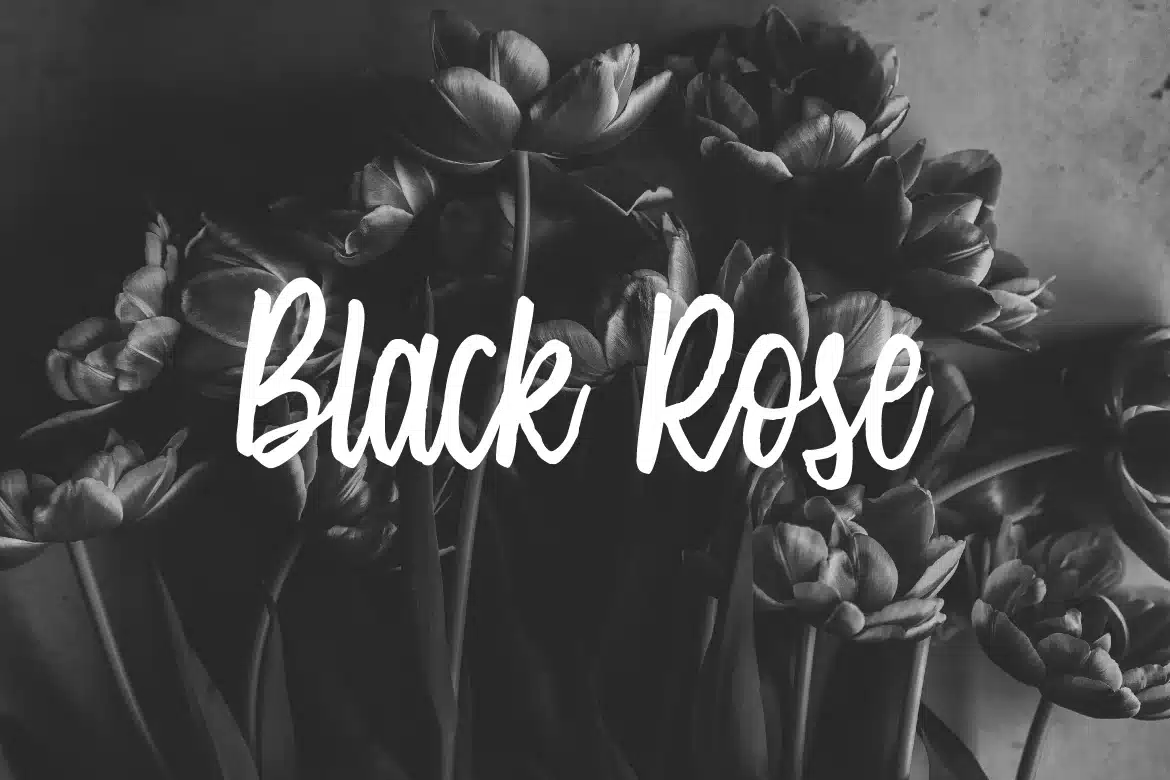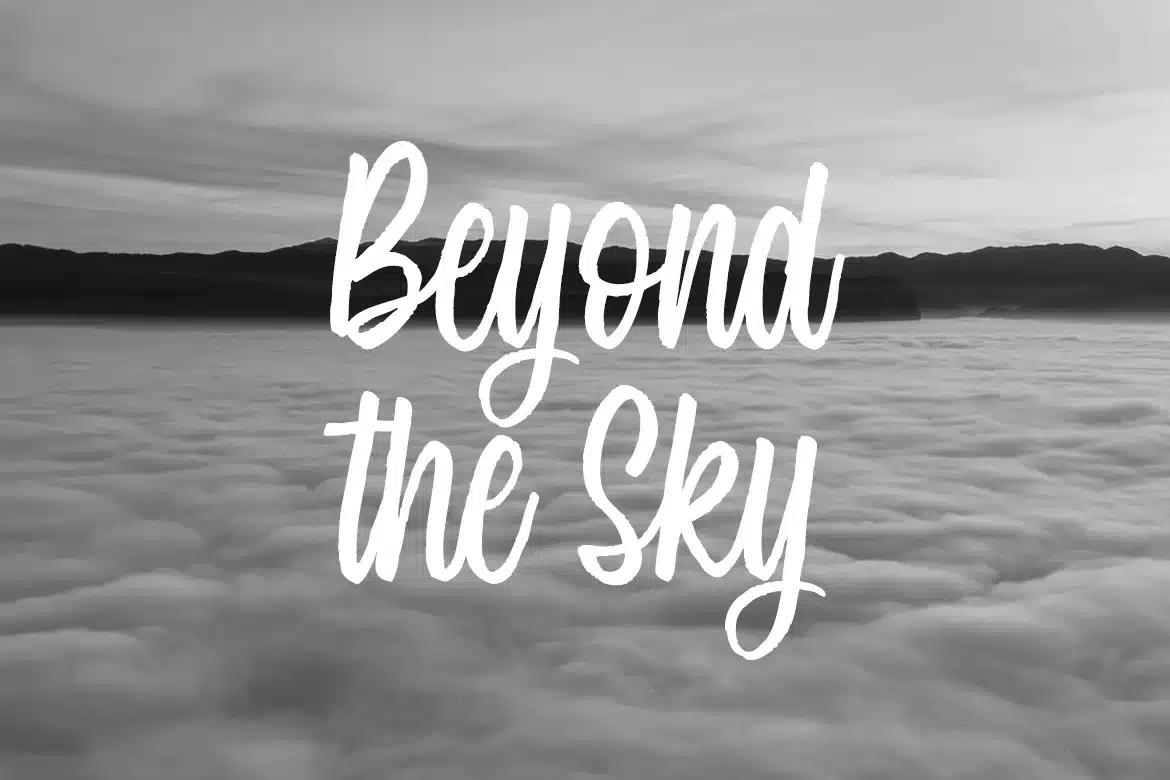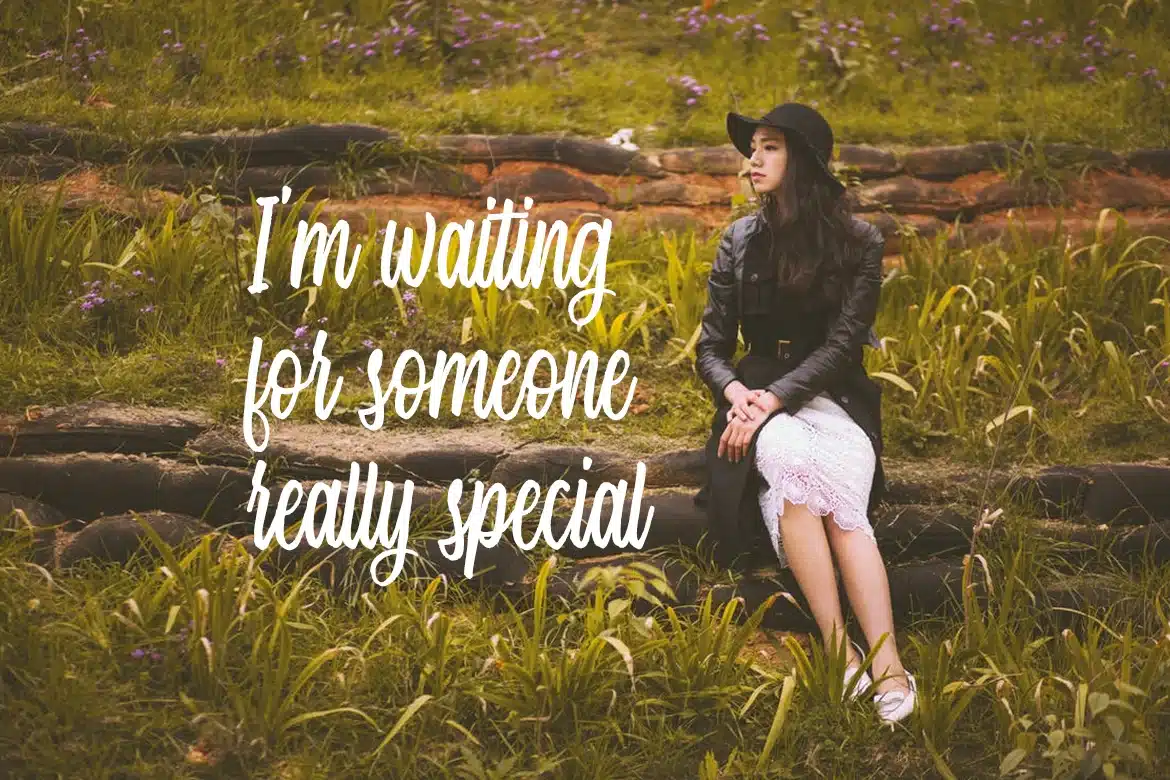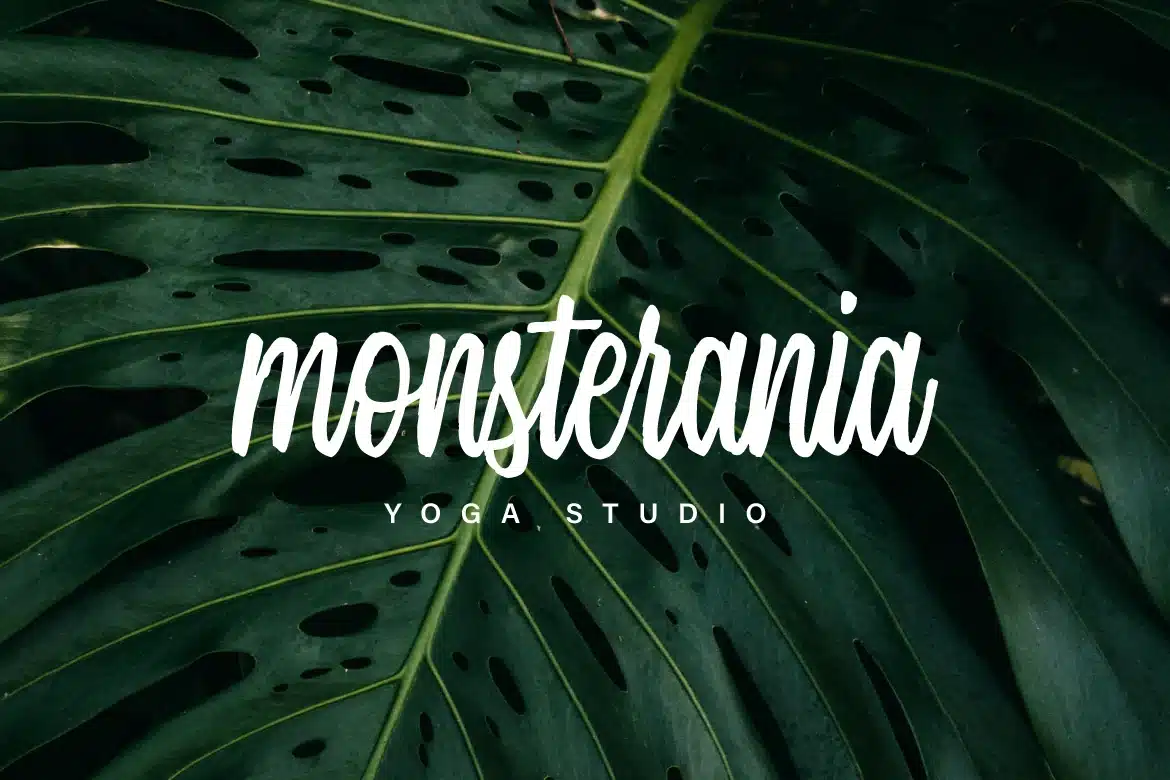
Single Brand Font
Say hello to Single Brand Font a marker calligraphy font.
Single Brand (regular and italic) is suitable for any design needs, logo and branding, modern advertising design, Art Quote Poster, Book/Cover Title, special events, custom mug, pillow, t-shirts, magazine, website or blog and any brush / marker calligraphy needs and more.